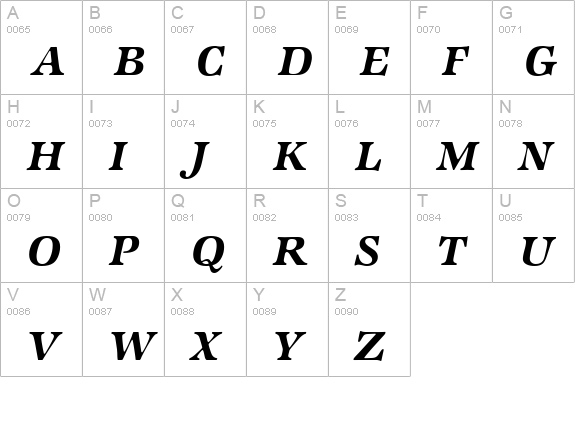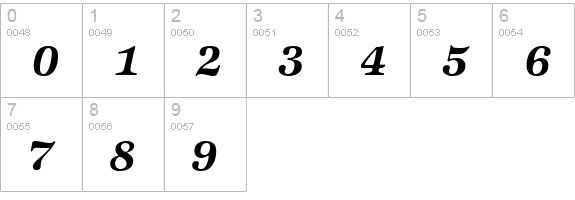
ZabriskieInternational-BoldItalic font is a modern and stylish typeface that exudes elegance and sophistication. With its bold and italicized design, this font is perfect for making a statement in any project. Whether you're creating a logo, designing a website, or crafting a promotional material, ZabriskieInternational-BoldItalic font will add a touch of class and flair. What makes this font even more appealing is that it is available for free download at FontsMarket.com. That's right, you can elevate your designs with this premium-quality font without spending a dime. So go ahead and give your projects a professional and polished look with ZabriskieInternational-BoldItalic font.